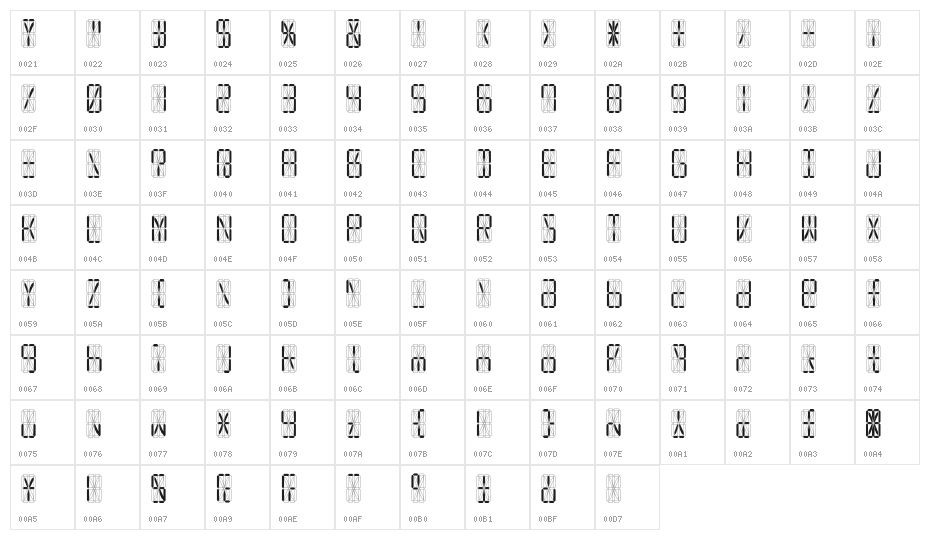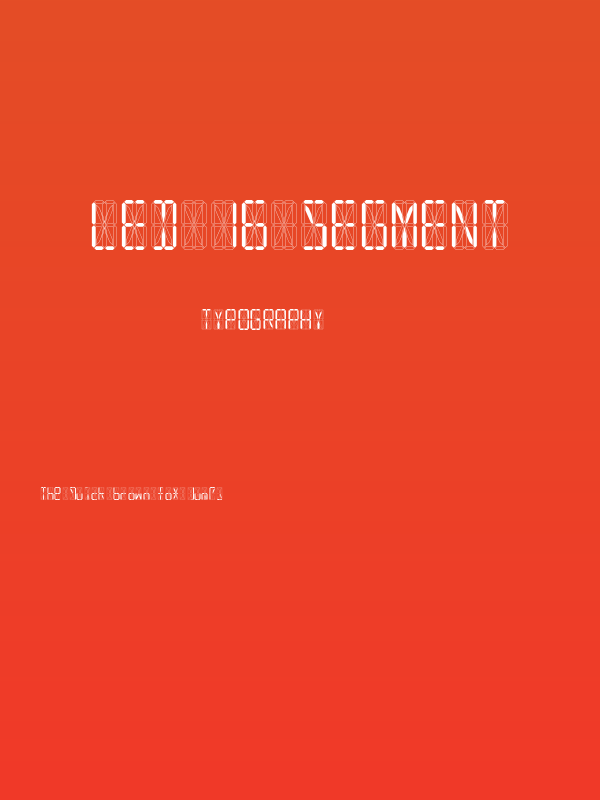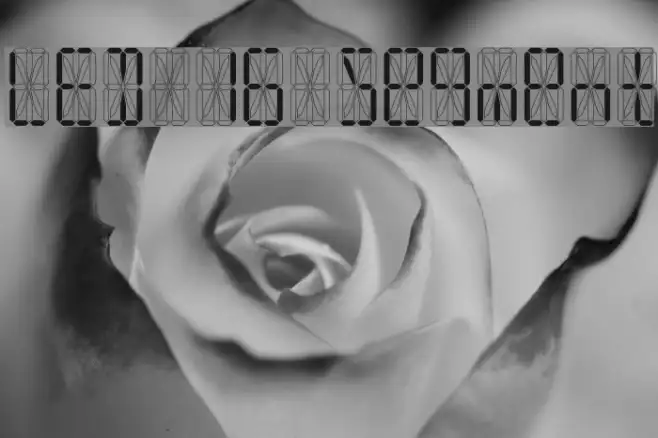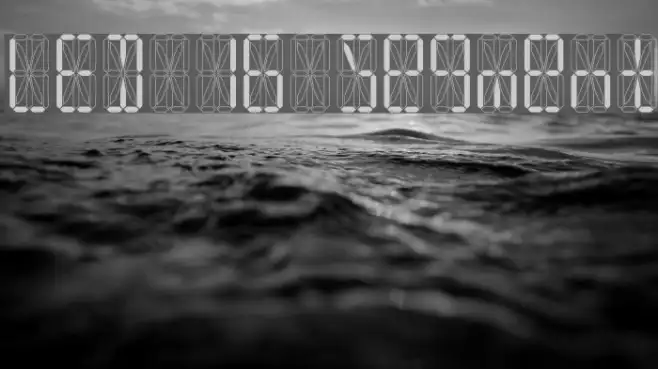
LED 16 Segment Font
LED 16 Segment Description
This font is designed to mimic the appearance of a 16-segment LED display, commonly used in digital clocks and electronic devices. Each character is constructed using a combination of straight and diagonal lines, creating a segmented look that is both technical and futuristic. The font is highly geometric, with a consistent width across all characters, giving it a monospaced appearance. The segments are bold and clearly defined, ensuring readability even at smaller sizes. This style is reminiscent of digital technology and retro electronic displays, making it ideal for projects that require a modern yet nostalgic touch.
| Use Case | Headlines, Digital displays, Tech interfaces |
| Proposed Projects | Perfect for digital interfaces, tech-themed posters, retro-style designs, and electronic device displays. |